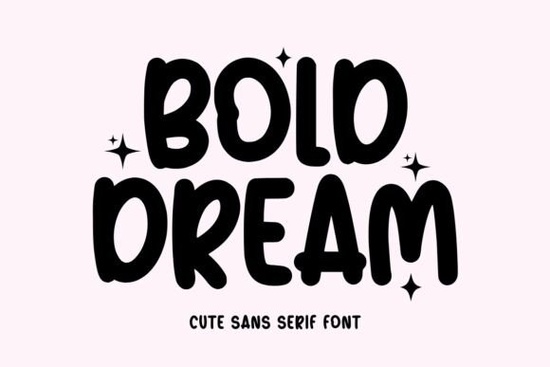
If you’re looking for a font that brings a sense of fun to your designs, Bold Dream Font is a great choice. Its bold, rounded letters feel playful and friendly, making it perfect for kids’ crafts, holiday cards, or casual logos. This sans-serif style keeps things clean while still adding personality, so it works for both digital and print projects.
What kind of projects work well with a bold rounded font?
Because the letters are thick and soft, Bold Dream Font stands out without being harsh. I’ve seen it used for:
- Holiday cards and invitations – the round shapes make greetings feel warm and inviting.
- Playful logos and branding – especially for daycare, toy stores, or family-friendly services.
- Kids’ activity sheets and storybooks – it’s easy to read and keeps the mood light.
- Social media graphics – short headlines in this font catch attention without extra decoration.
- Print-on-demand items – think mugs, t-shirts, or stickers with cute sayings.
If you need a font that works at larger sizes for titles, Bold Dream Font handles that well. The spacing is even, and the curves don’t get lost when scaled up.
How does Bold Dream Font compare to other playful sans-serif fonts?
Not all rounded fonts behave the same in design software. Six Sound Font has a more retro feel with softer edges, while Vectura Font leans toward modern minimalism. If you want something with a bit more structure, Glasgow Grotesk Font offers clean lines but with a taller x-height. Bold Dream Font sits somewhere in between – it’s bolder than most rounded sans-serifs, which helps it hold up on merchandise or signs.
For designers who often pair fonts, this one works well with thin scripts or condensed serifs. The contrast adds visual interest without feeling busy.
Practical tips for using Bold Dream Font in your designs
- Pair it with a handwritten font for contrast – the rounded shapes balance well with loose scripts.
- Use all caps for short headlines – the bold weight stays readable, and the curves become more playful.
- Test it at small sizes – because the letters are thick, it might feel heavy for body text. Keep it for headings or short phrases.
- Layer it over simple backgrounds – the roundness stands out nicely on pastel or neutral colors.